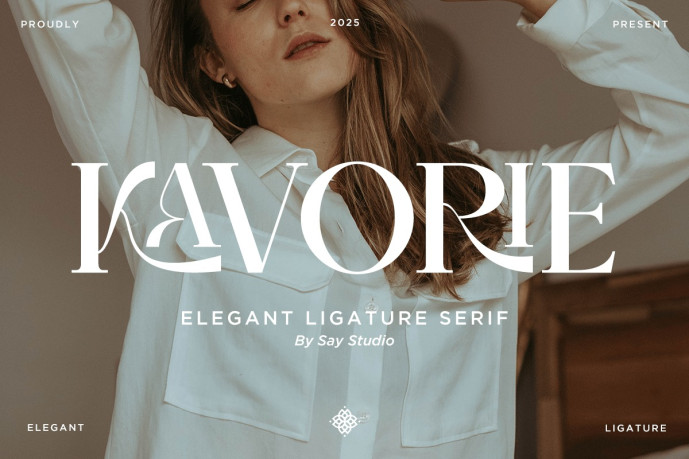
Kavorie Font
Kavorie Font is an elegant ligature serif typeface designed for high-end branding and modern editorial aesthetics. With refined letterforms, artistic ligatures, and a luxurious, high-contrast style, this typeface brings timeless sophistication to logos, magazines, fashion brands, invitations, and high-end design projects. Kavorie enhances any layout with its graceful curves and contemporary elegance, making it the ideal choice for designers seeking a stylish and premium serif experience.